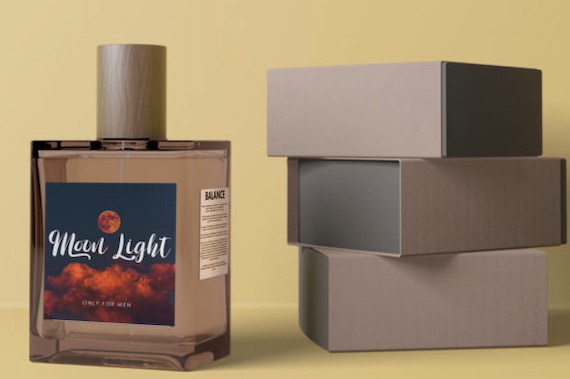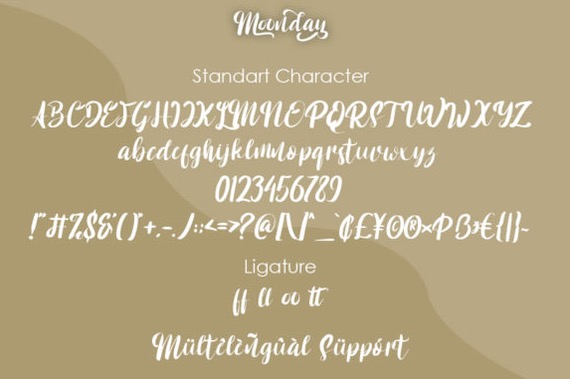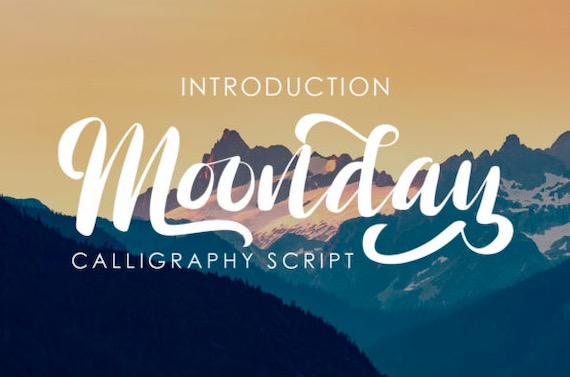
Moonday Font is a friendly and sweet handwritten script typeface that was created and shared by Green Adventure Studio. Its natural and unique style makes it incredibly fitting for a large pool of designs. The only limit is your imagination! Fall in love with its incredibly versatile style and use it to create spectacular designs! Moonday font is PUA encoded which means you can access all of the glyphs and swashes with ease!
Moonday Calligraphy Script Font